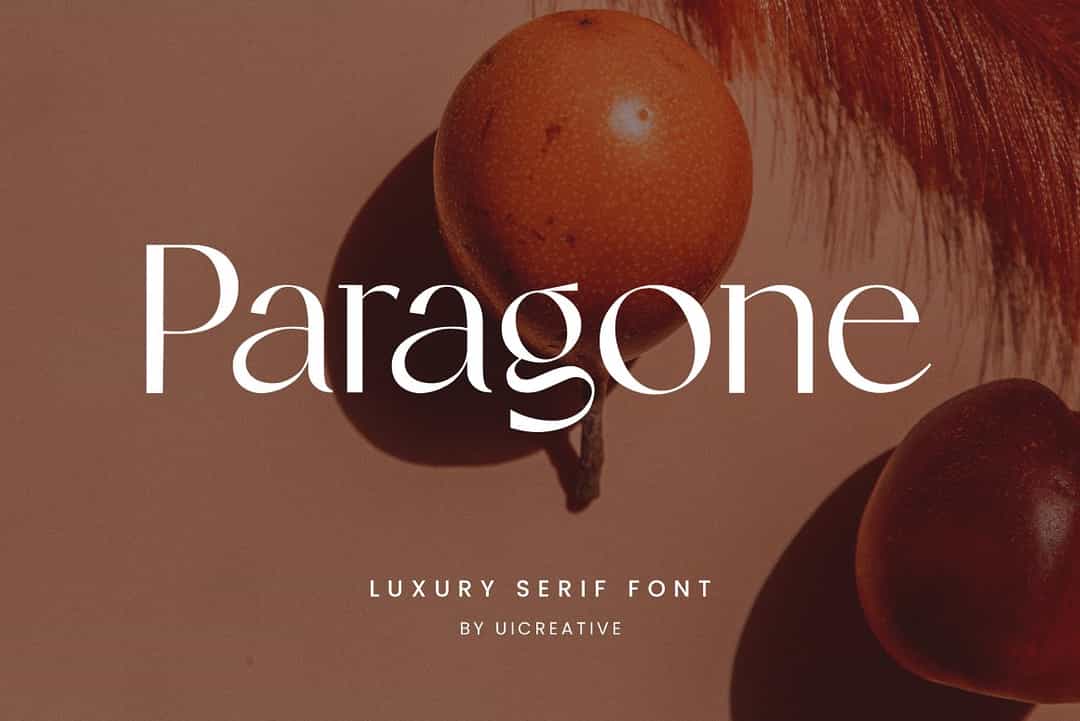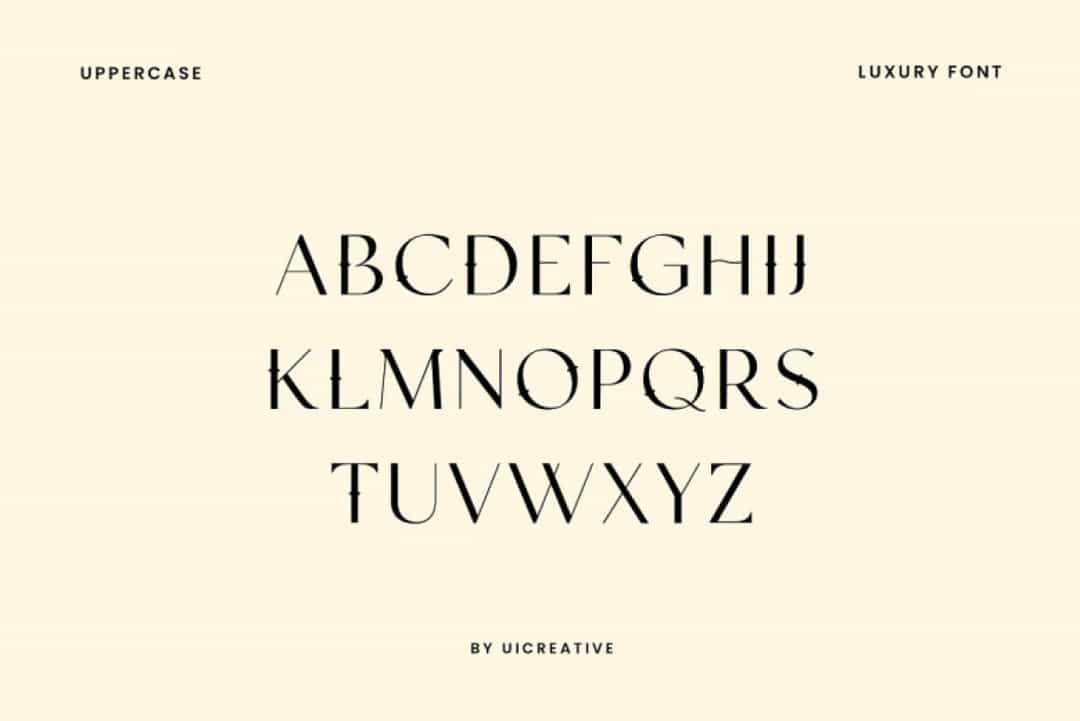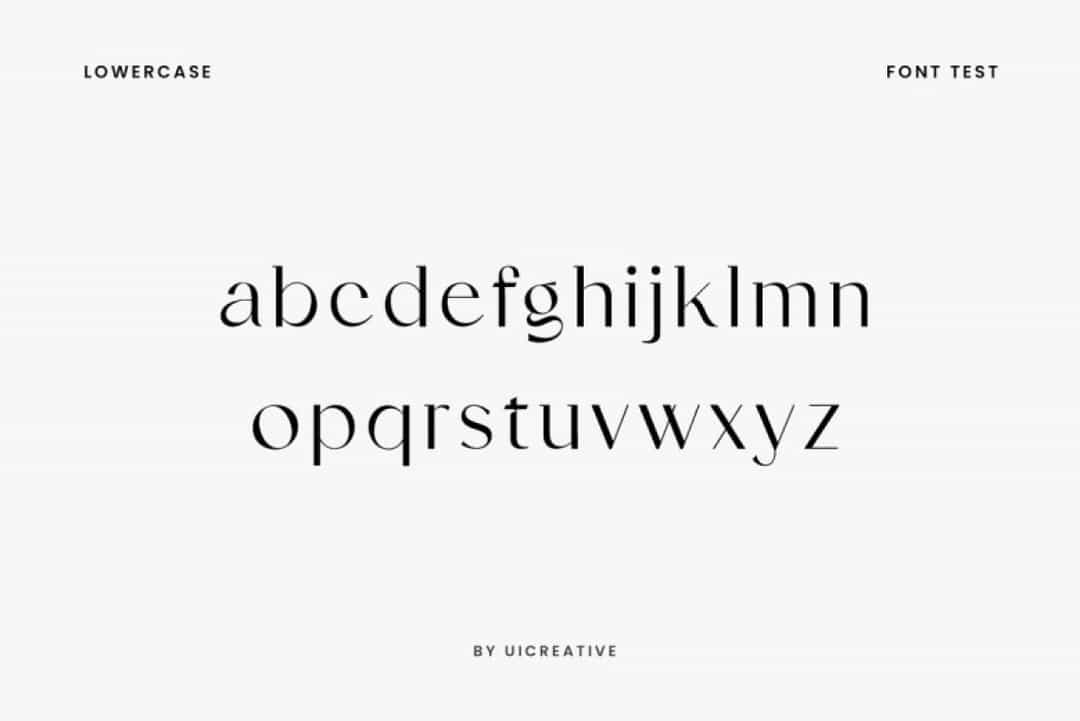
Paragone is an elegant, classy and contemporary serif typeface perfect for various uses such as stationary, logos, signatures wedding invitations, typography quotes magazines book covers headers for websites clothing packaging design branding etc. This font provides many applications.